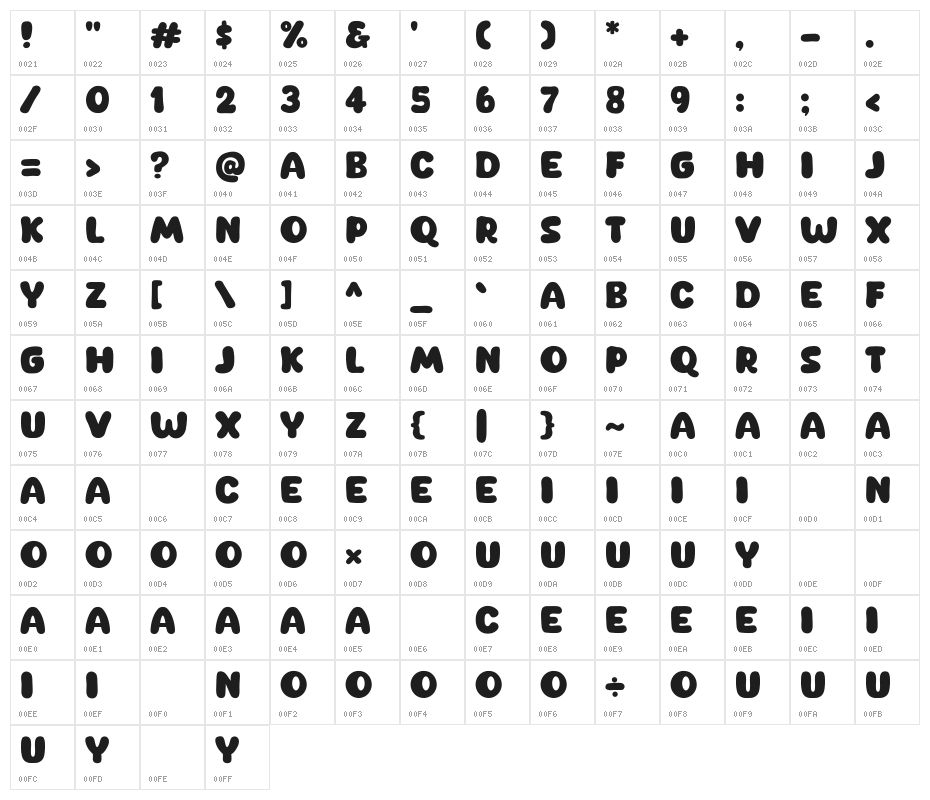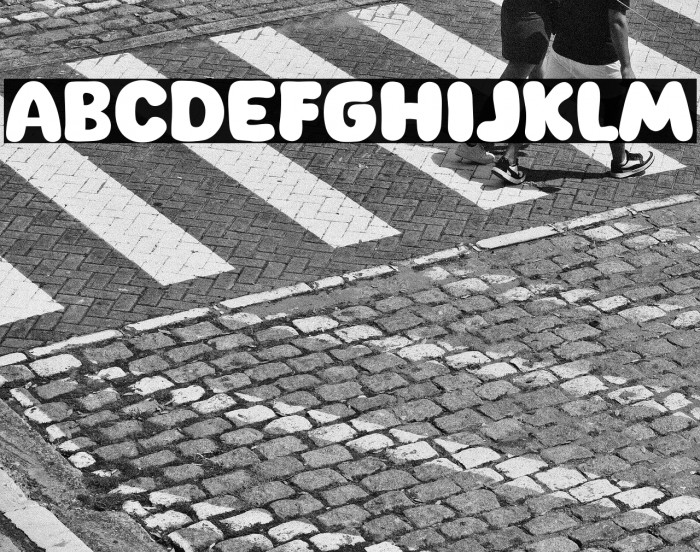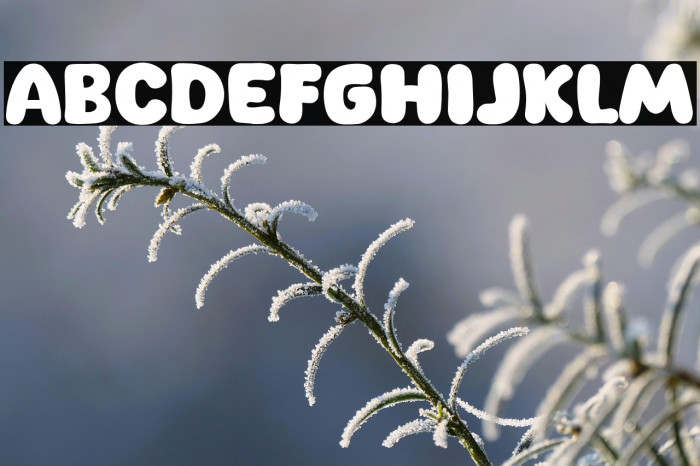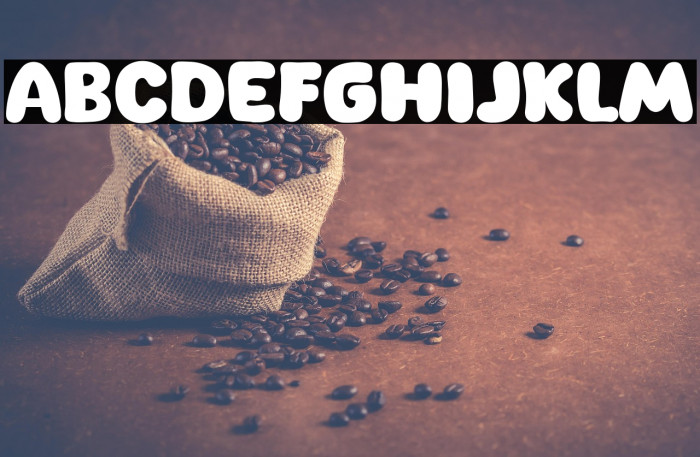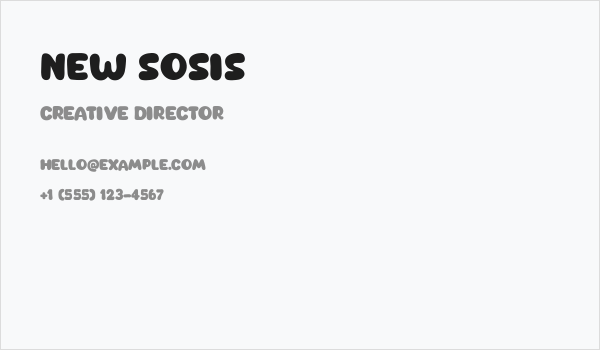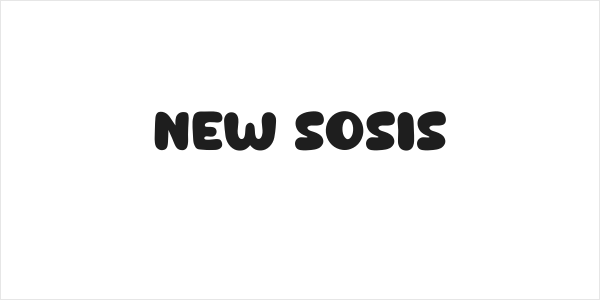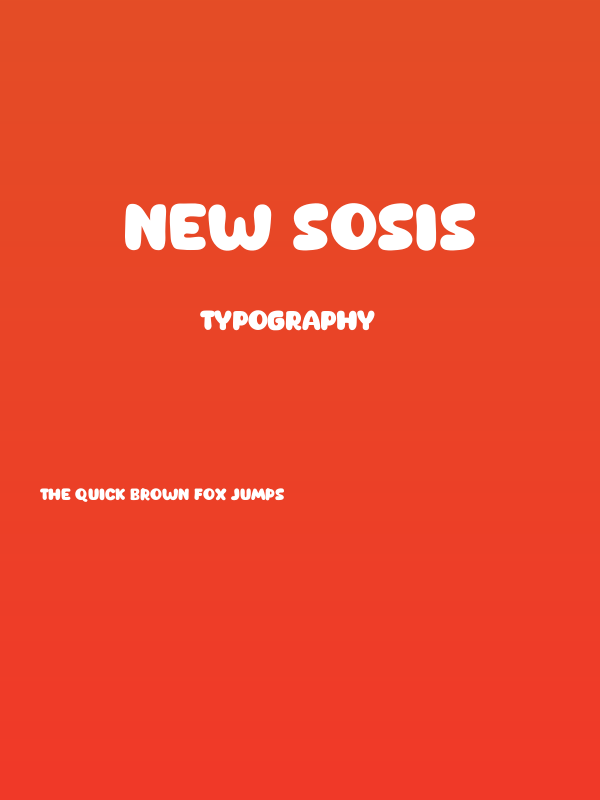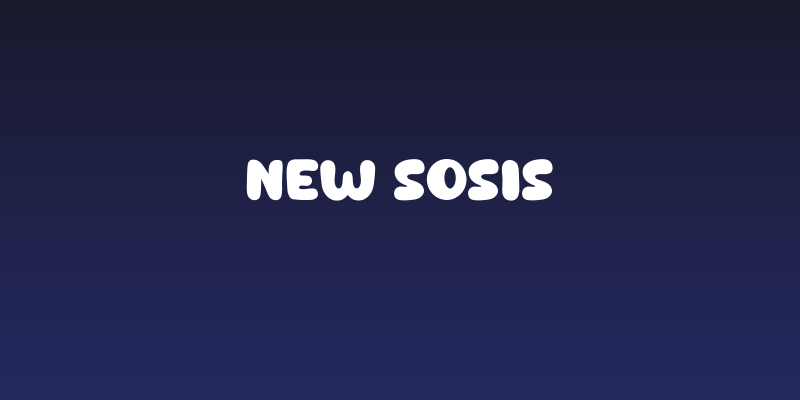
New Sosis Font
New Sosis Description
This font features a bold and playful design with rounded, bubbly characters that convey a sense of fun and approachability. The letters are uniformly thick, with a consistent stroke width that adds to the font's cohesive appearance. The characters are slightly condensed, giving them a compact look while maintaining readability. This style is reminiscent of retro or vintage aesthetics, making it ideal for projects that require a touch of nostalgia or whimsy. The font includes a full set of uppercase and lowercase letters, numbers, and a variety of special characters, ensuring versatility for different design needs.
| Proposed Projects | Ideal for children's books, playful branding, retro-themed designs, and creative posters. |